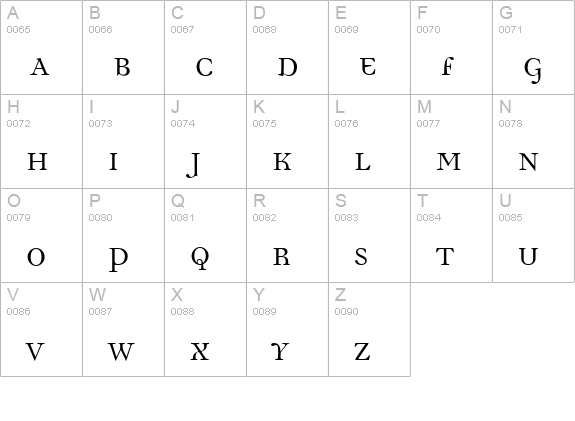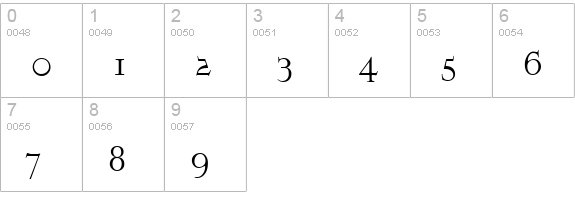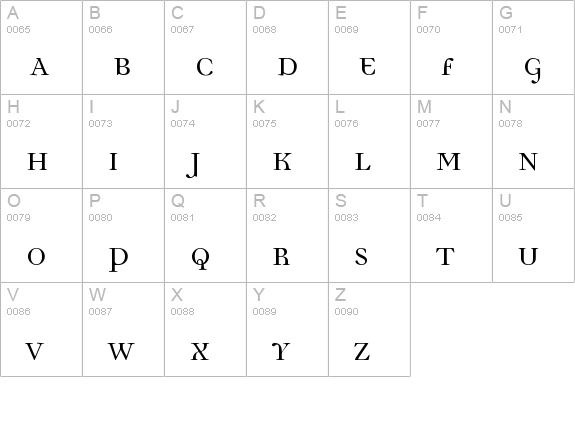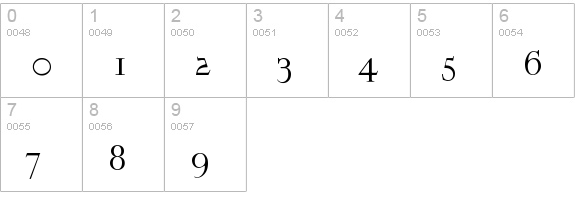
DemocraticaRegularOldstyle Regular Font Details
DemocraticaRegularOldstyle Regular is the standard, neutral variant in the DemocraticaRegularOldstyle typeface family \xE2\x80\x94 well suited to general body text, paragraphs, and standard typographic work.
DemocraticaRegularOldstyle Regular font is a classic and elegant typeface that exudes sophistication and professionalism. With its timeless design and balanced letterforms, this font is versatile and suitable for a wide range of design projects. Its clean lines and subtle curves make it easy to read both in print and on screen. Best of all, DemocraticaRegularOldstyle Regular font is available for free download at FontsMarket.com. This means that you can easily access this high-quality font for your personal or commercial projects without any cost. Whether you're creating a website, designing a logo, or working on a print publication, this font is sure to elevate your work and make a lasting impression. Download DemocraticaRegularOldstyle Regular font today and add a touch of sophistication to your designs.